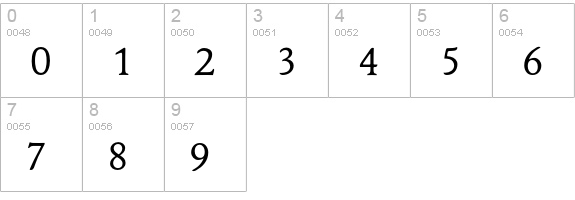
Maxime Std Font Details
Maxime Std is a beautifully crafted font that exudes elegance and sophistication. With its sleek lines and modern design, it is perfect for a wide range of projects, from branding to editorial design. The font's versatility allows it to be used in both digital and print applications, making it a valuable addition to any designer's toolkit. One of the best features of Maxime Std is that it is completely free to download. You can easily access this stunning font at FontsMarket.com, where you can explore its full potential and enhance your creative projects with its unique charm and style. Whether you're working on a logo, website, or marketing materials, Maxime Std is sure to make a lasting impression with its timeless appeal and refined aesthetics. Download it today and elevate your designs to the next level.